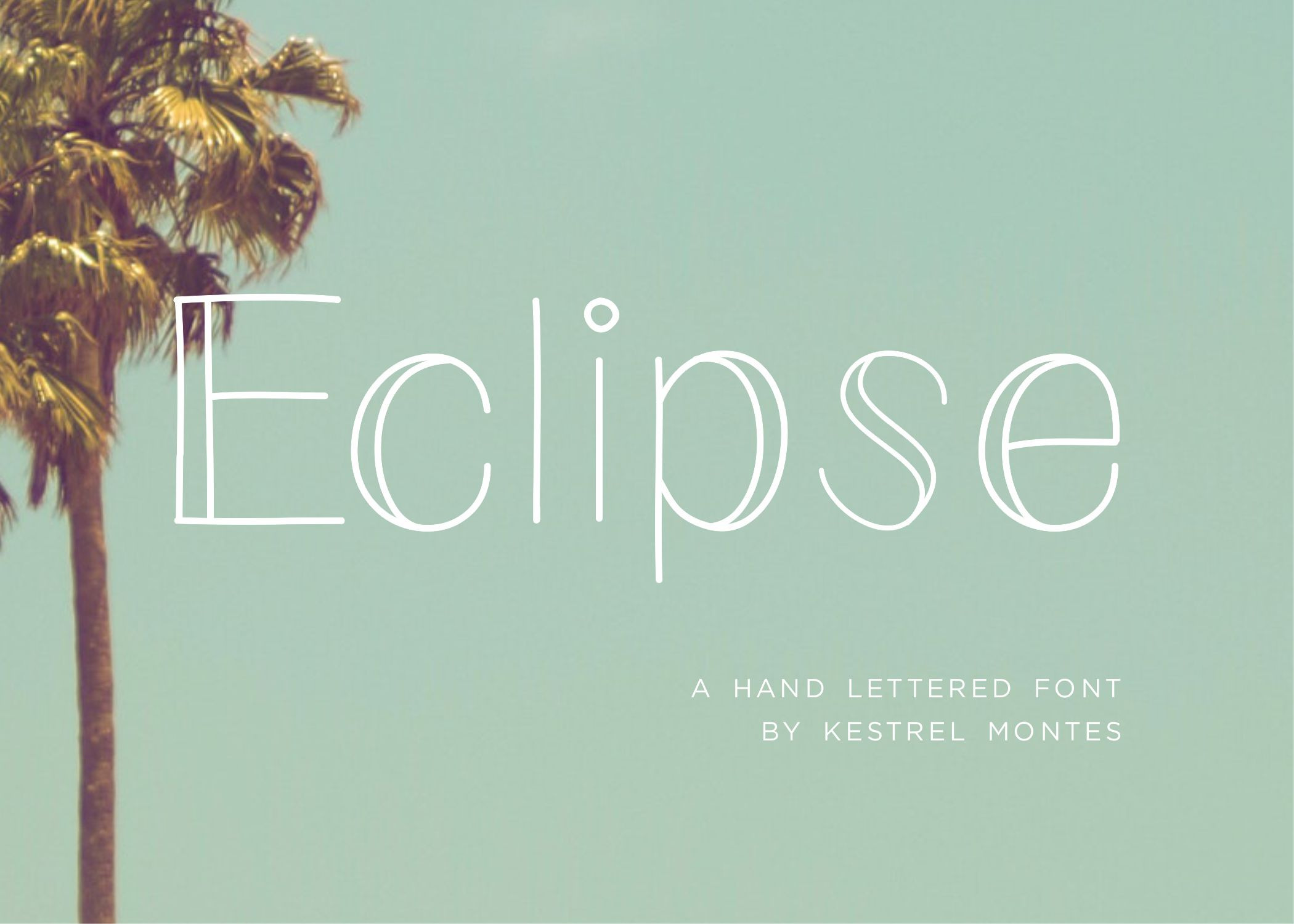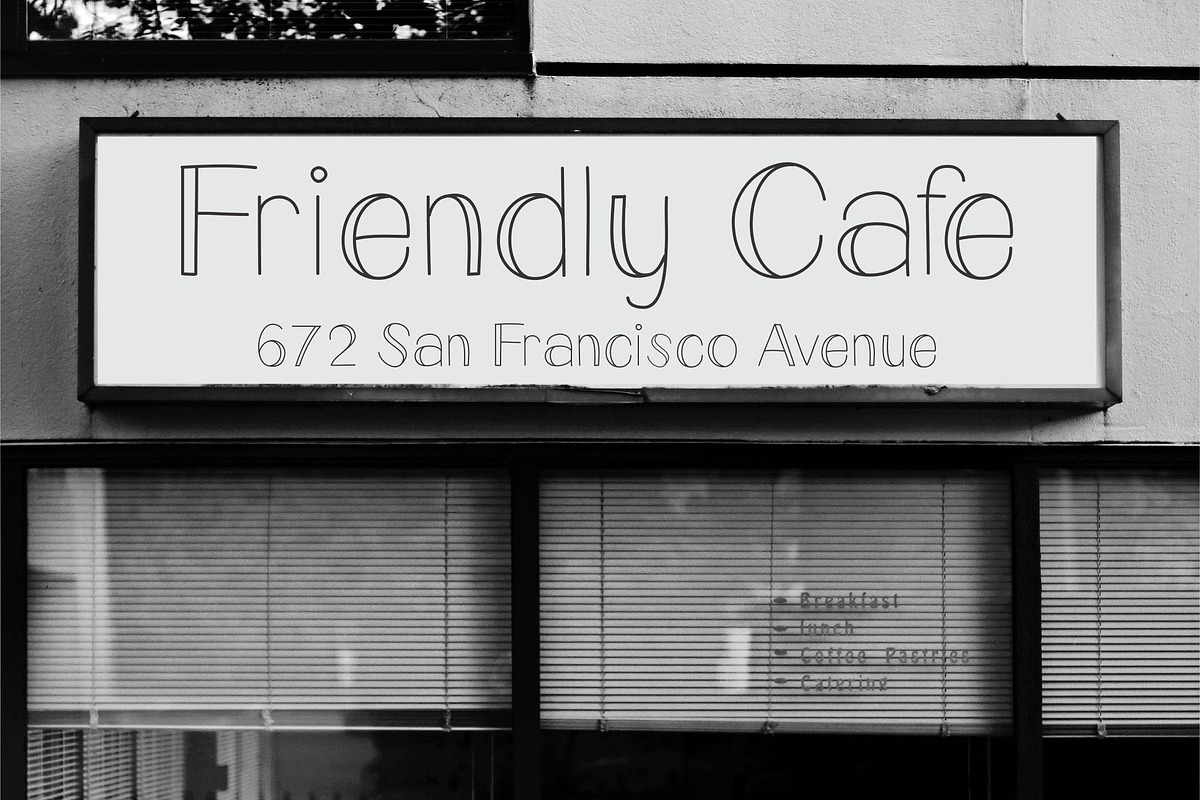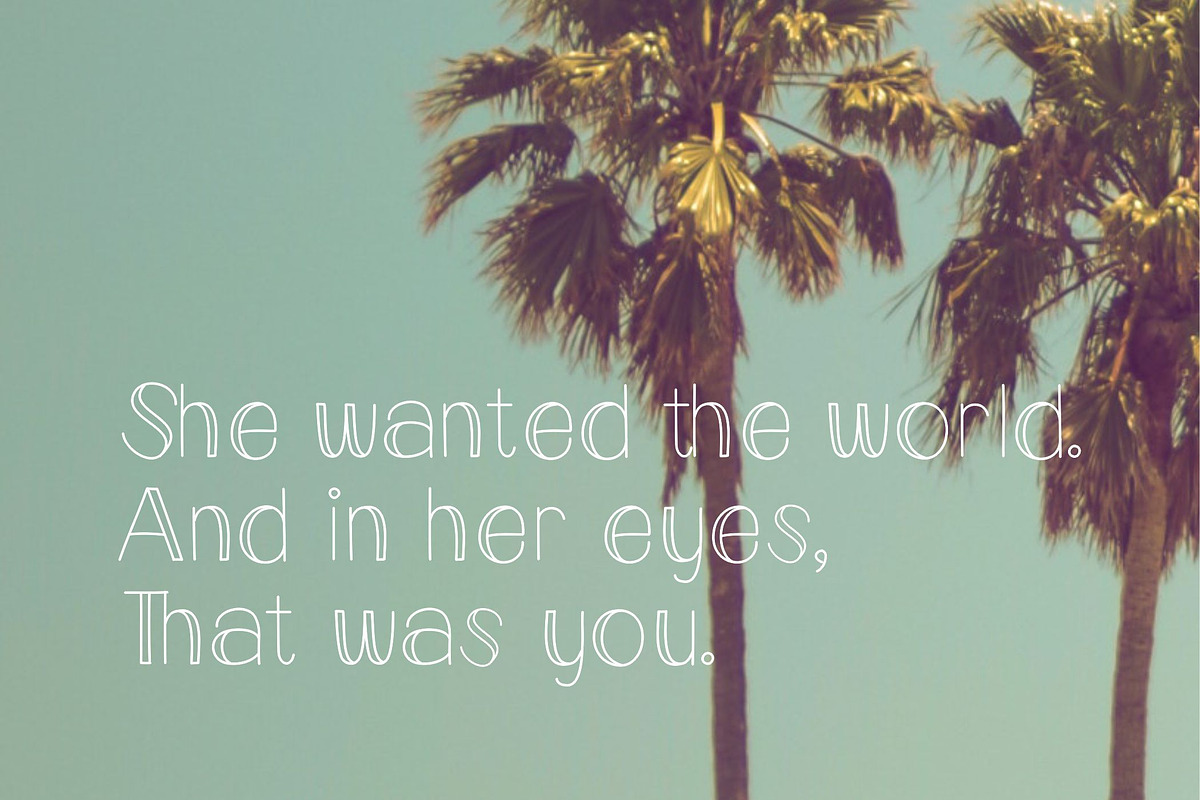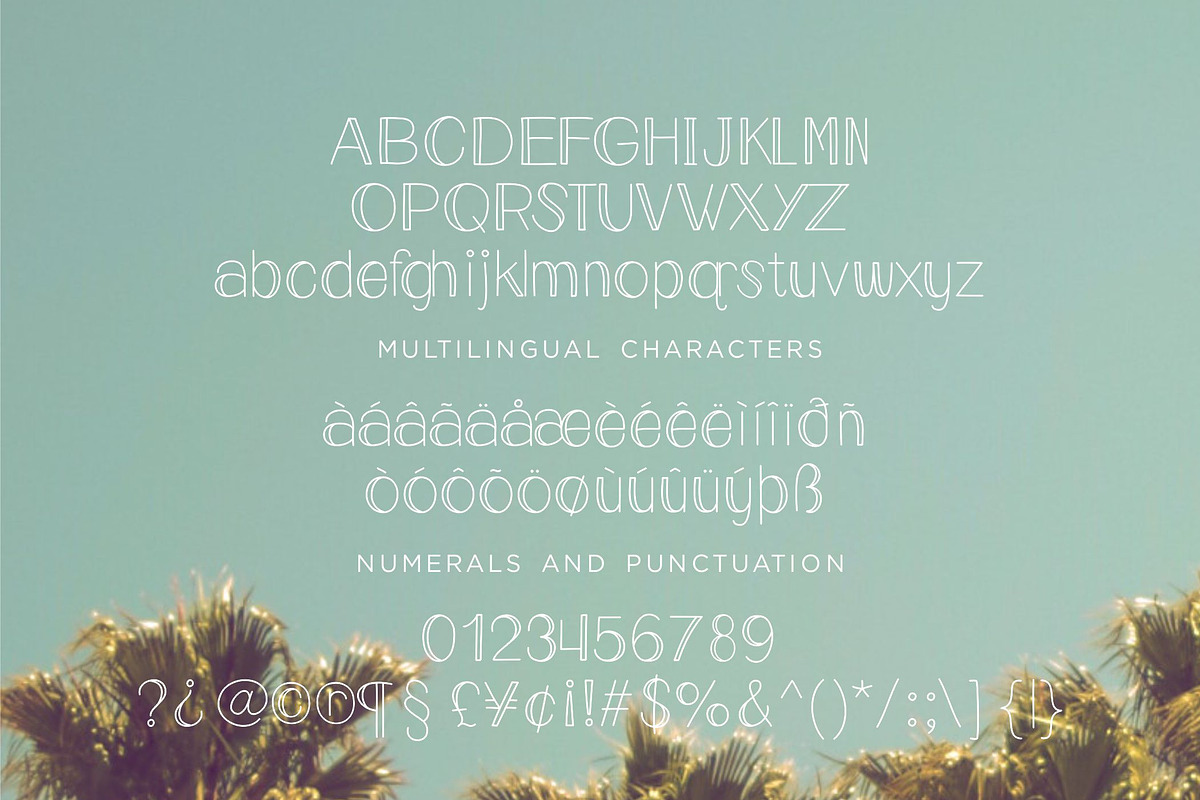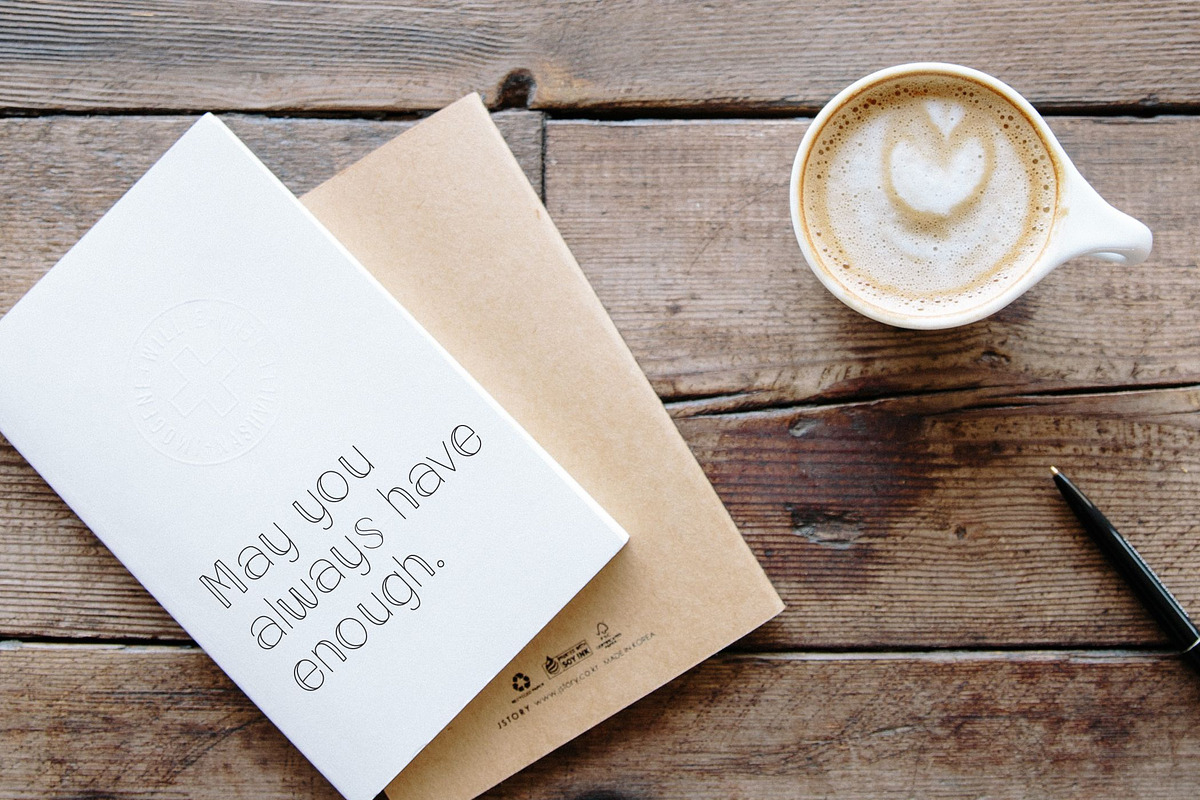
Eclipse monoline font
Eclipse by Kestrel Montes is a fun modern/retro (is there such a thing?) hand lettered print font.
• 197 characters including lots of multilingual characters and punctuation